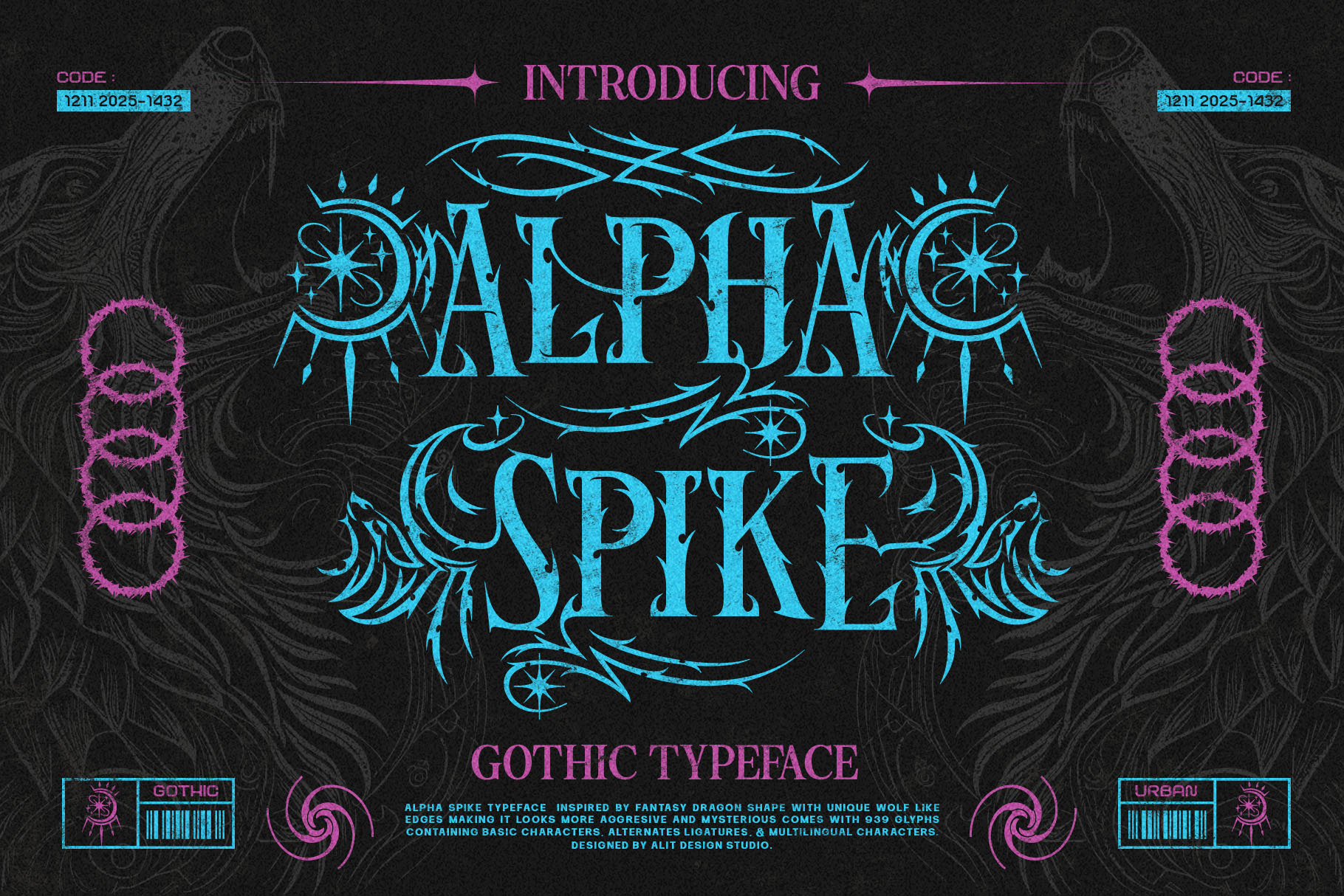
Alpha Spike Typeface
A Neo-Gothic Masterpiece Inspired by Myths and Darkness
Unleash the beast within your designs with Alpha Spike, a typeface that bridges the gap between ancient darkness and futuristic aggression.
Inspired by the fantastical silhouettes of dragon scales and the feral sharpness of wolf fangs, Alpha Spike is not merely a font—it is a visual weapon. This "Neo-Gothic" Blackletter style features unique, flame-like edges and razor-sharp terminals that command attention immediately. It captures the essence of mystery, rebellion, and raw power.
Whether you are crafting a logo for a modern metal band, designing high-end streetwear merchandise, or creating a poster for a dark fantasy RPG, Alpha Spike delivers a look that is both majestic and intimidating.
The "Cyber-Gothic" Aesthetic: While rooted in traditional Blackletter forms, Alpha Spike is designed for the modern era. As seen in the previews, it pairs perfectly with "Acid Graphics," Y2K aesthetics, and cyberpunk layouts. It is versatile enough to look ancient on a parchment texture or futuristic in neon cyan and magenta.
- Massive Glyph Collection: Includes 929 glyphs, giving you unlimited creative freedom.
- Extensive Alternates: Features 4 Stylistic Sets (SS01-SS04) for Uppercase characters. Mix and match to create custom typography that looks like a hand-drawn logo.
- Aggressive Ligatures: specialized character combinations that add flow and bite to your words.
- Multilingual Support: Broad language support to take your designs global.
- Versatile Use: Perfect for display purposes—headlines, logos, apparel, album covers, tattoo designs, and horror-themed branding.
- Full set of uppercase and lowercase letters
- Complex Ligatures & Alternates